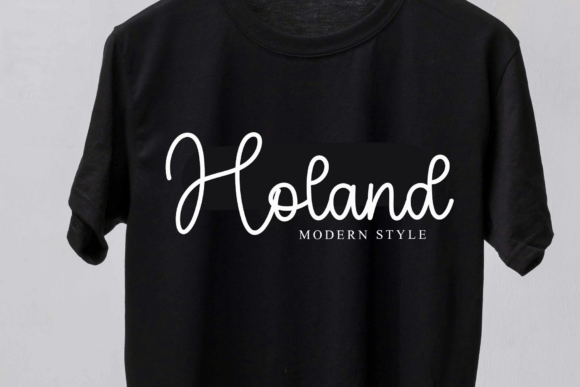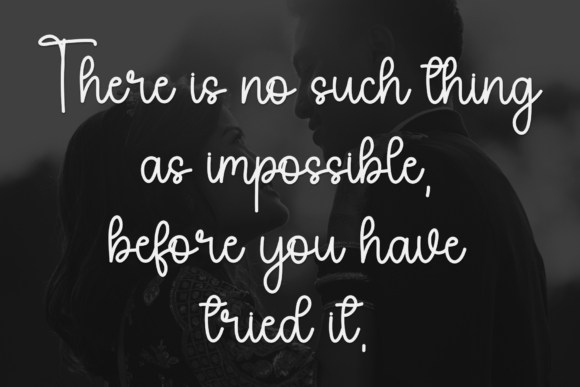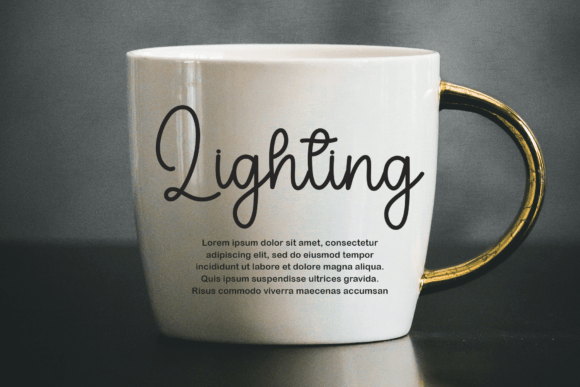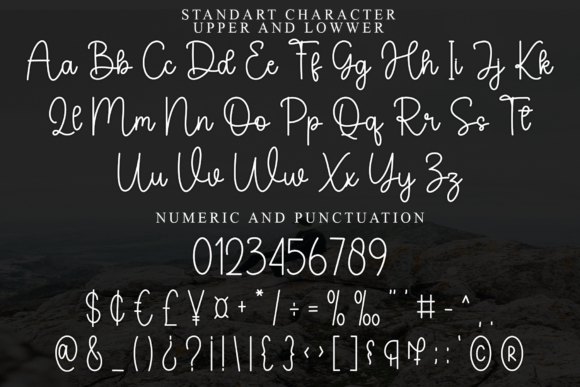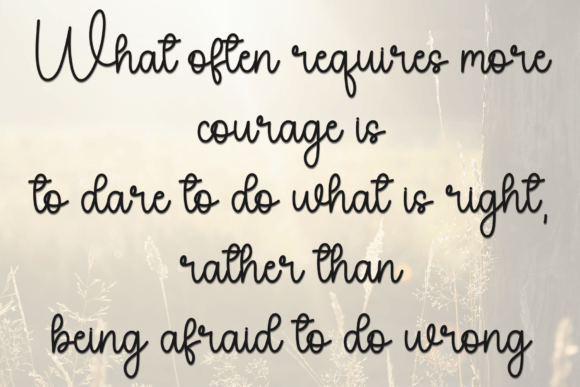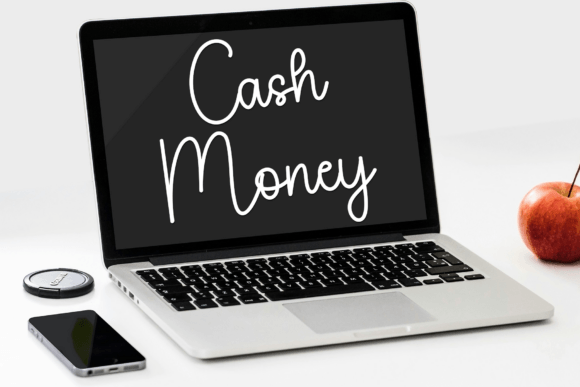
Introducing Alphabet Homemade Font: A Unique and Versatile Typeface for Creative Projects
Are you a designer, crafter, or creative looking for a font that adds a personal touch to your projects? Look no further than Alphabet Homemade Font, a beautiful and eye-catching typeface designed with a soft, unique touch. This distinctive font is perfect for a wide range of creative works, from design projects and crafts to artistic expressions.
The Distinctive Characteristics of Alphabet Homemade Font
Alphabet Homemade Font stands out from other fonts due to its distinctive strokes, which give it a special character. The font’s unique design makes it meaningful and versatile, allowing it to be used in various contexts. Whether you’re creating a logo, crafting a handmade card, or designing a website, Alphabet Homemade Font is sure to make your project stand out.
One of the key features of Alphabet Homemade Font is its varied characters. The font includes a range of characters, ensuring that you have everything you need to create stunning designs. From uppercase and lowercase letters to numbers and punctuation marks, Alphabet Homemade Font has got you covered.
Alphabet Homemade Font is ideal for designers and crafters who want to add a personal touch to their projects. The font’s natural, handmade style makes it perfect for:
- Handmade cards and invitations
- DIY crafts and scrapbooking
- Logo design and branding
- Website design and development
- Artistic expressions and creative writing
With Alphabet Homemade Font, you can create unique and eye-catching designs that reflect your personality and style. The font’s versatility ensures that it can be used in a wide range of projects, from simple crafts to complex design projects.
Enhance Your Designs with Alphabet Homemade Font
Alphabet Homemade Font is designed to enhance your designs, making them appealing to a wide range of audiences. The font’s unique style and versatility ensure that it can be used in various artistic and creative fields, including:
- Graphic design
- Handmade crafts
- Art and illustration
- Creative writing and publishing
Whether you’re a professional designer or a hobbyist crafter, Alphabet Homemade Font is sure to inspire your creativity and take your projects to the next level.
In conclusion, Alphabet Homemade Font is a beautiful and versatile typeface that is perfect for designers, crafters, and creatives. Its unique style, distinctive strokes, and varied characters make it a valuable asset for any project. With its compatibility with various applications and software, Alphabet Homemade Font is easy to use and incorporate into your workflow.